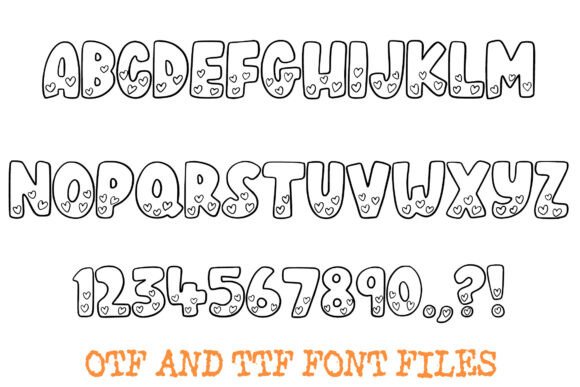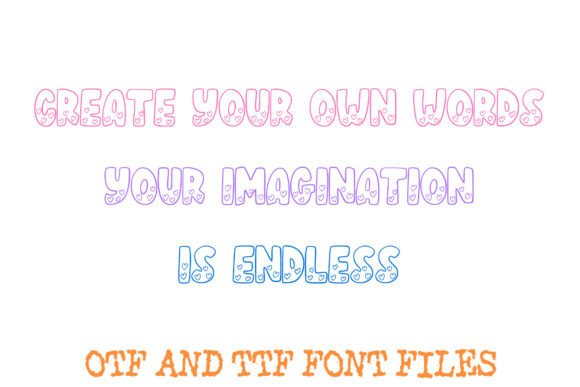
Introduction to Love Heart Doodle Font
Add a burst of affection to your designs with the Love Heart Doodle Font.
This charming display typeface features bold, โpuffyโ bubble characters with a clean outline style The magic is in the detailsโthe interior of every letter and number is decorated with a scattering of tiny, hand-drawn hearts, giving each character a sweet and artisanal feel.
Key Features of Love Heart Doodle Font
Why Choose Love Heart Doodle Font?